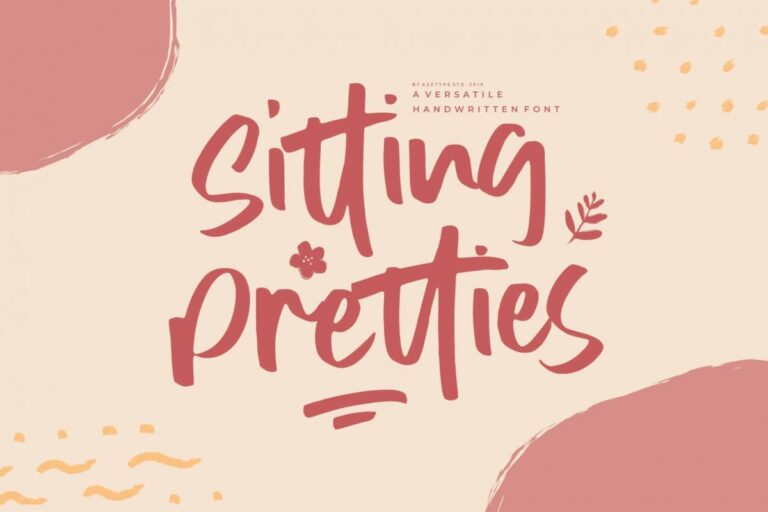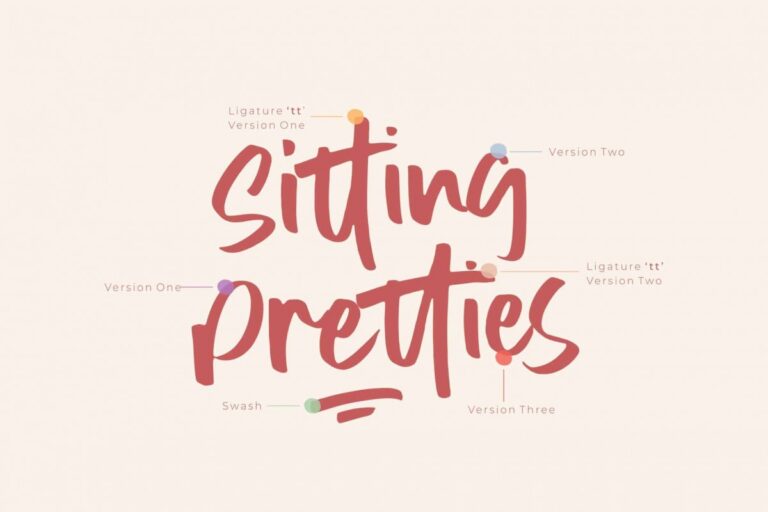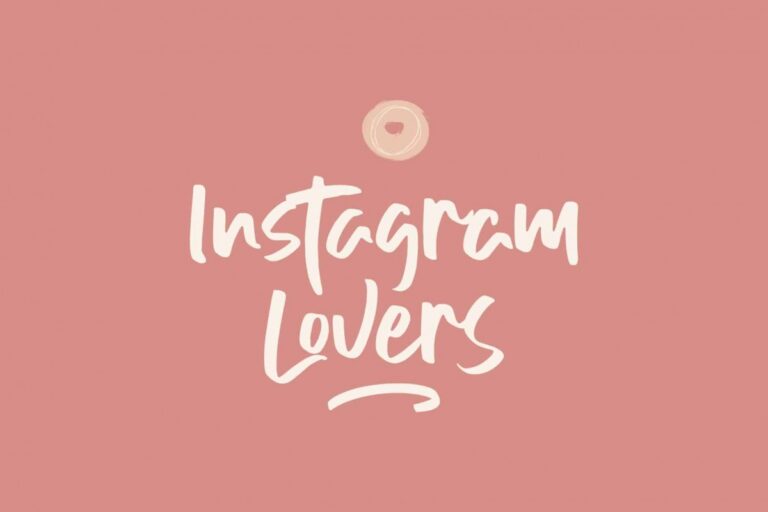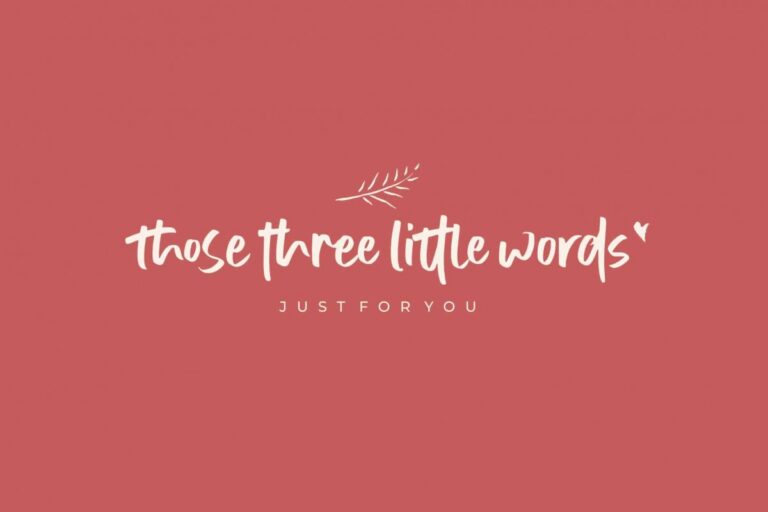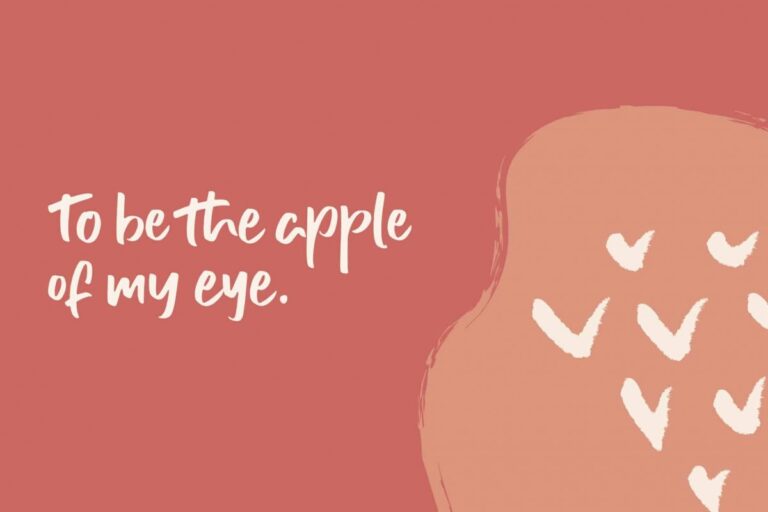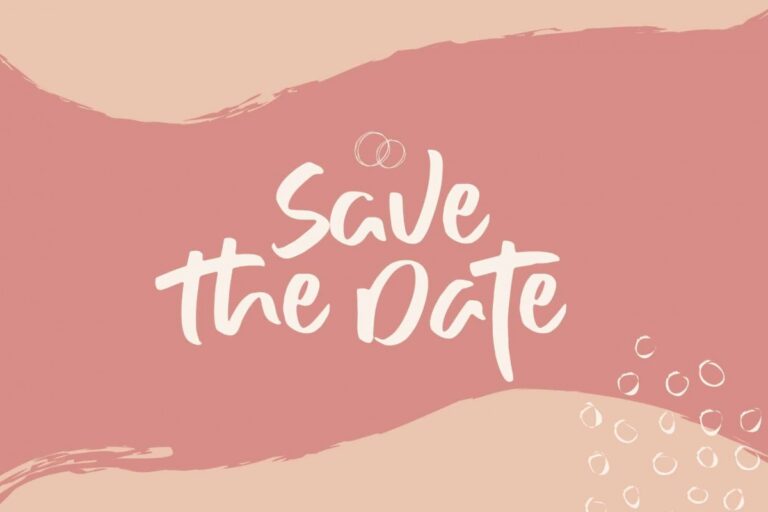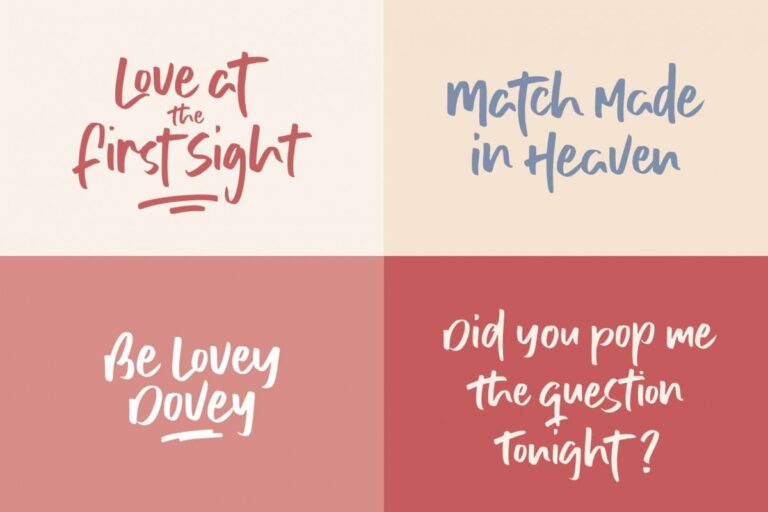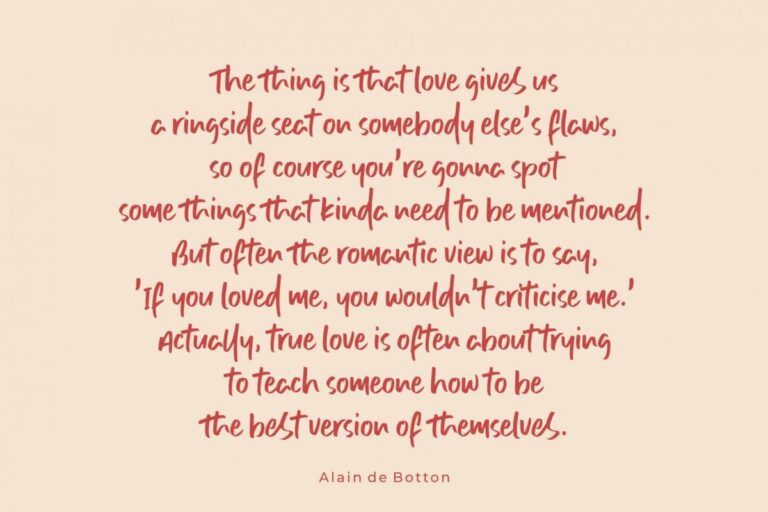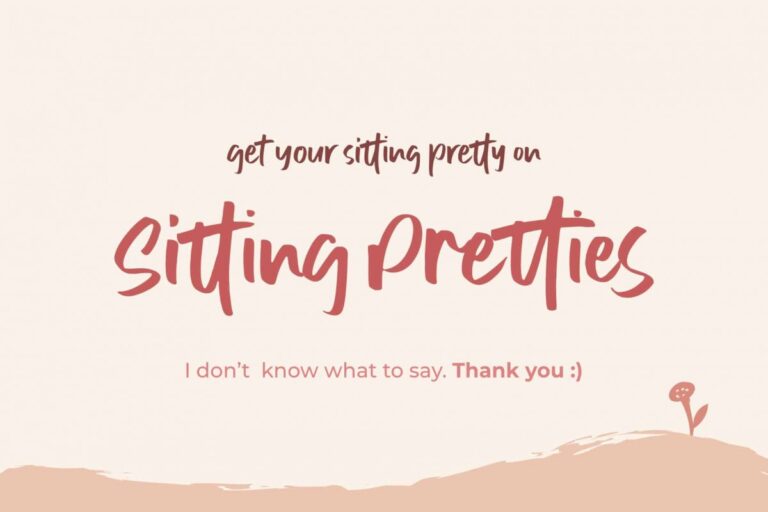
Sitting Pretties
Sitting Pretties Swash
We proudly present a New Font is called Sitting Pretties. This font made with the perfect combining of each character. You can type by Mix & Match to get a unique combining. It looks original and can be used for all your project needs. Each glyph has its own uniqueness and when meeting with others will provide dynamic and pleasing proximity. This font can be used at any time and any project.
“Get Your Sitting Pretty on Sitting Pretties Font!”